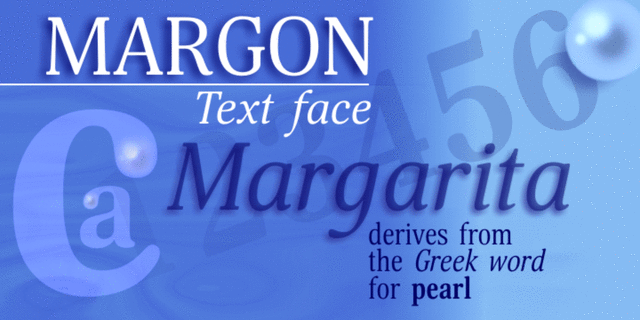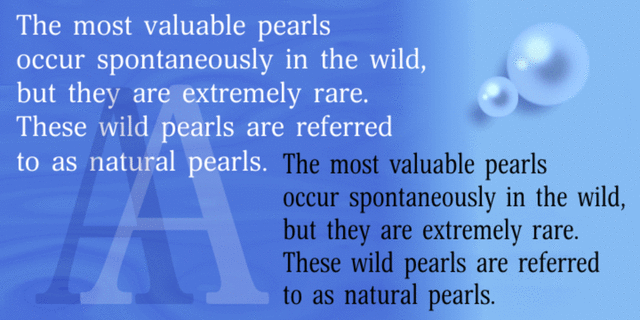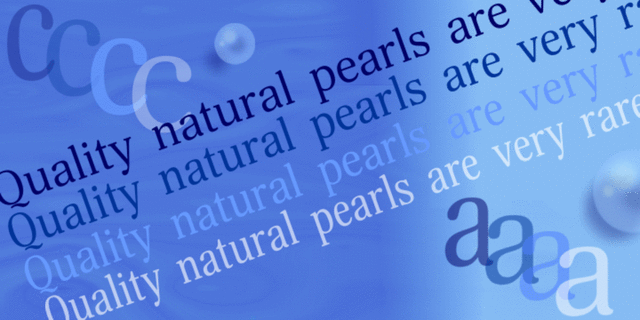
Margon (18 fonts)
About MargonMargon is a serif font family with a temperate design. Small serifs, moderate contrast, tiny roundings on the corners made it calm and serene. Margon font family consists of 18 members divided into 4 groups of different proportions marked by indexes 360, 380, 400, 430. These values correspond to the densities of sets — 360 is the widest style, 430 is the narrowest one. The peculiarity of Margon family is a small difference in proportions of characters between the neighboring groups, less than 10%. Such a tiny step makes it possible to select a font that gives the best result with regard to capacity and readability. Margon can be used in book, magazine and newspaper design. It was developed by Natalia Vasilyeva and released by ParaType in 2012.
Soft, cozy, moderate, calm, stable, universal, polite, cultured, comfortable, unobtrusive, flat, smooth, peaceful, friendly, clear, static, restrained, modern, eco-friendly, green, harmonious, spring, humanitarian, organic, beautiful